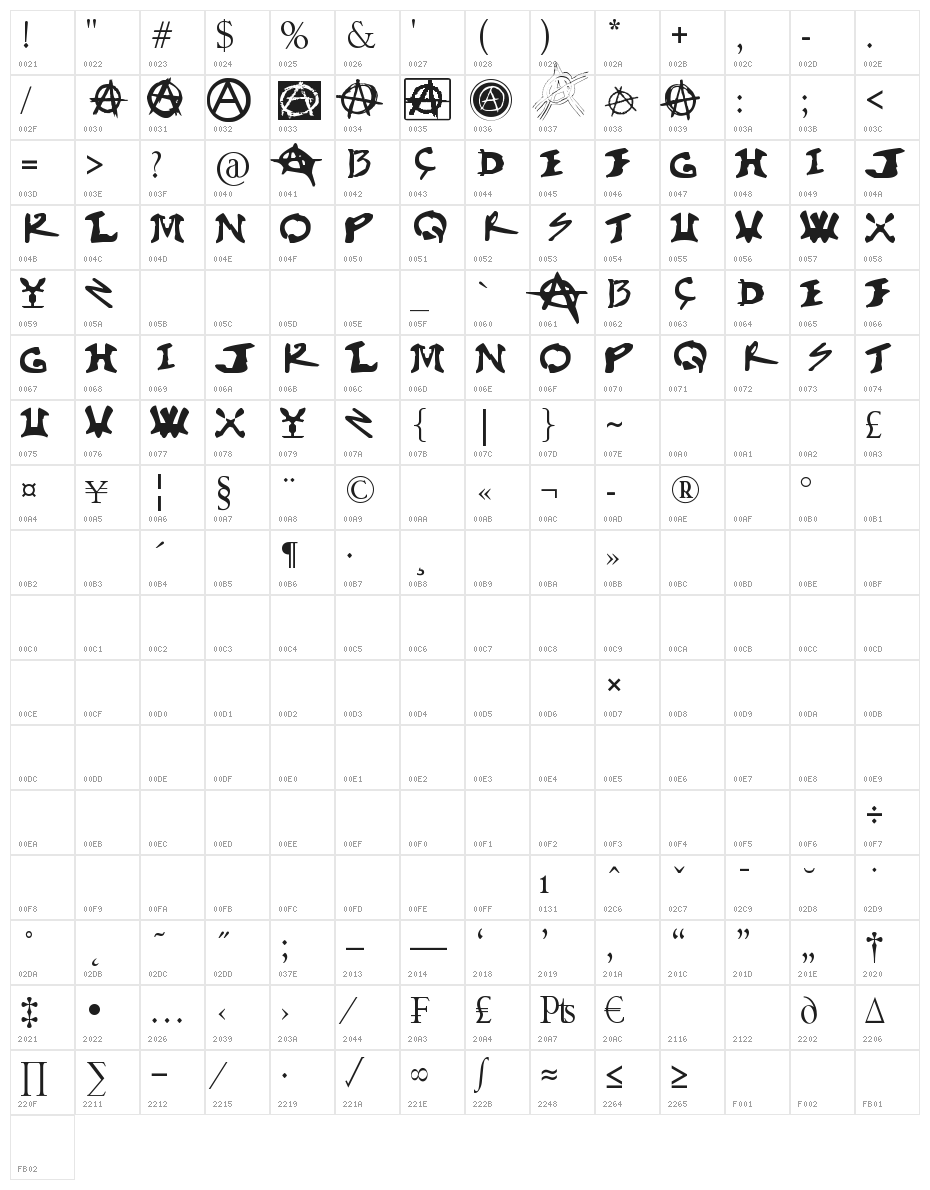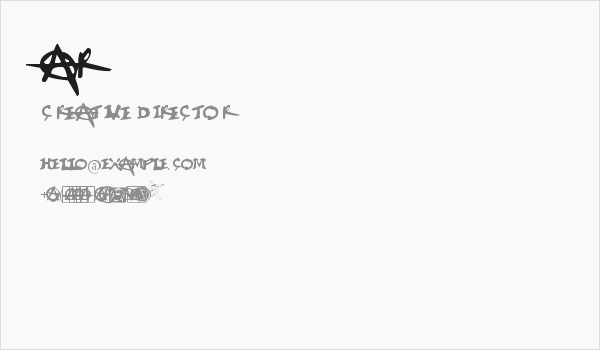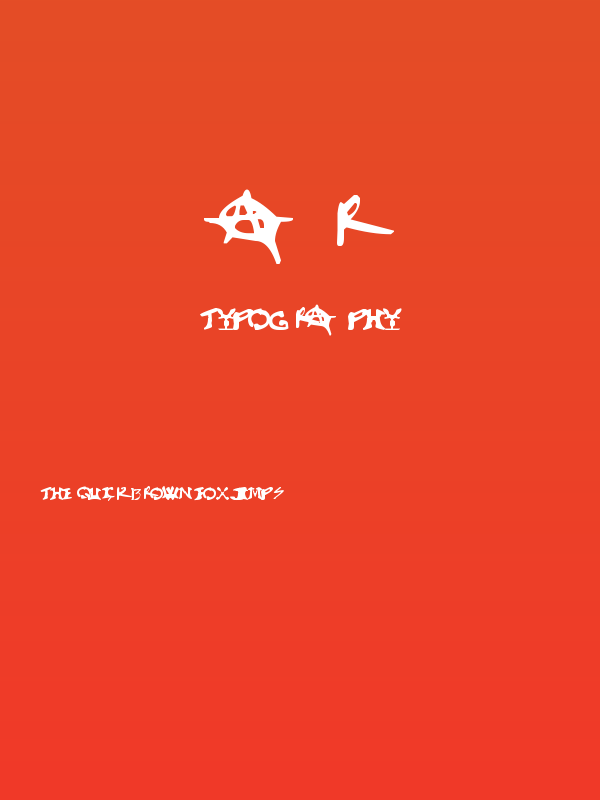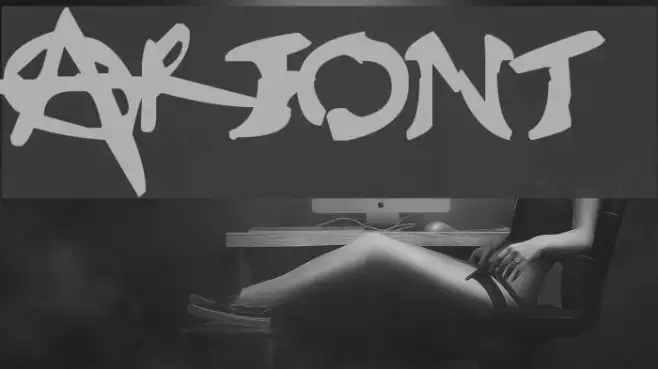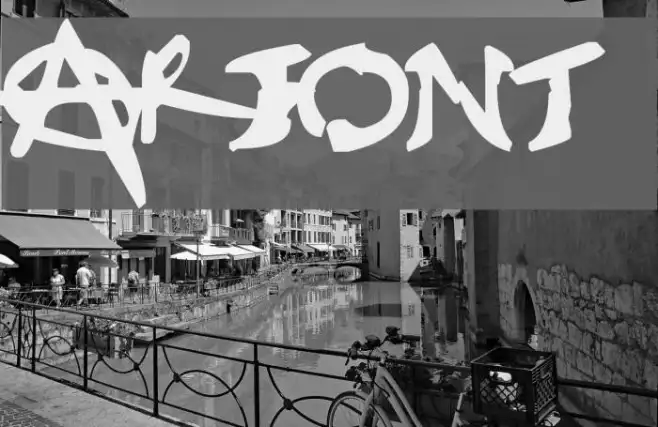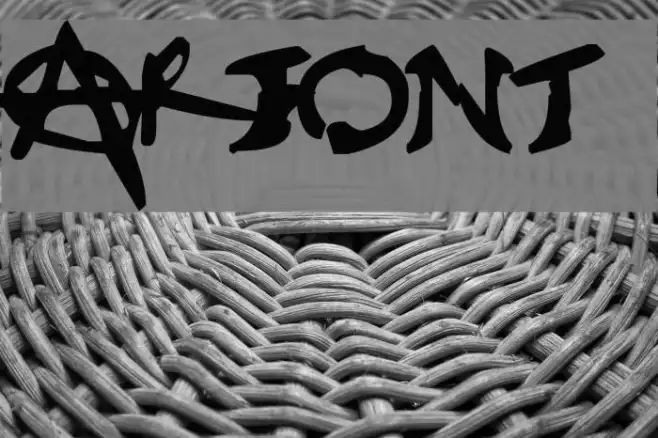
ar Font
ar Description
This font features a bold and rebellious style, characterized by its graffiti-inspired design. The letters are heavily stylized with sharp edges and irregular shapes, creating a sense of movement and energy. The font includes a mix of uppercase and lowercase letters, numbers, and a variety of special characters. Its chaotic and anarchic appearance makes it stand out, with some letters incorporating symbols like the anarchy sign. The overall look is rough and edgy, suitable for projects that aim to convey a sense of defiance or underground culture.
AR UPPERCASE
AR LOWERCASE
AR OTHER CHARS
| Overall Style | Rebellious, Graffiti, Edgy |
| Use Case | Logos, Posters, Album Covers |
| Proposed Projects | Ideal for punk rock album covers, street art posters, rebellious branding, and edgy event flyers. |